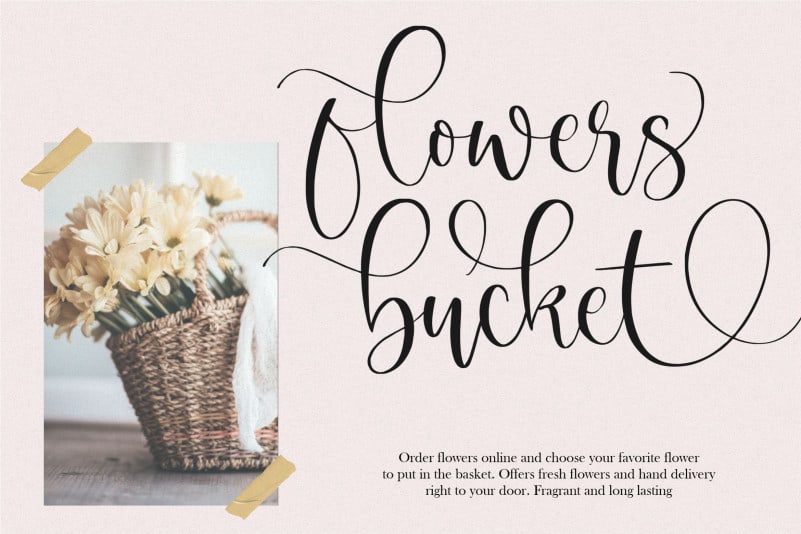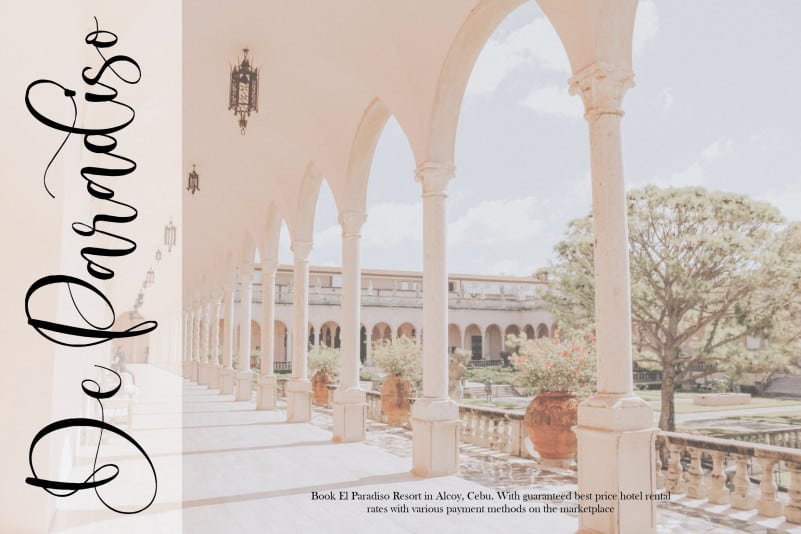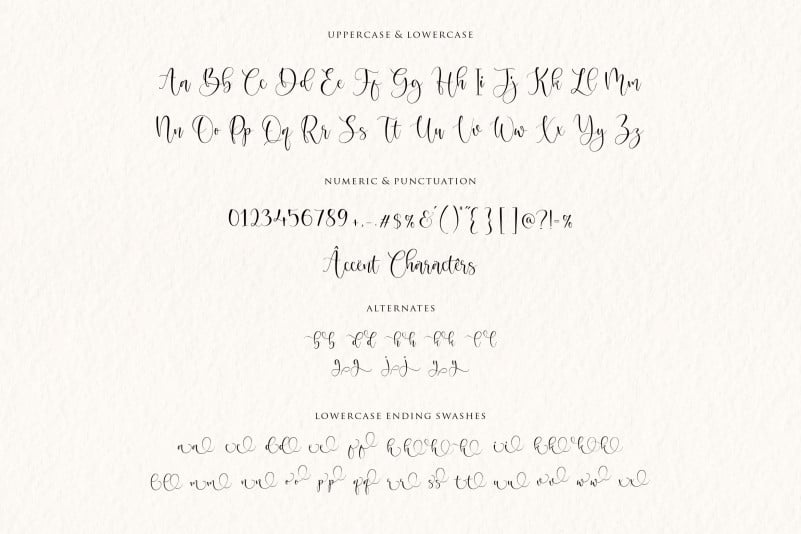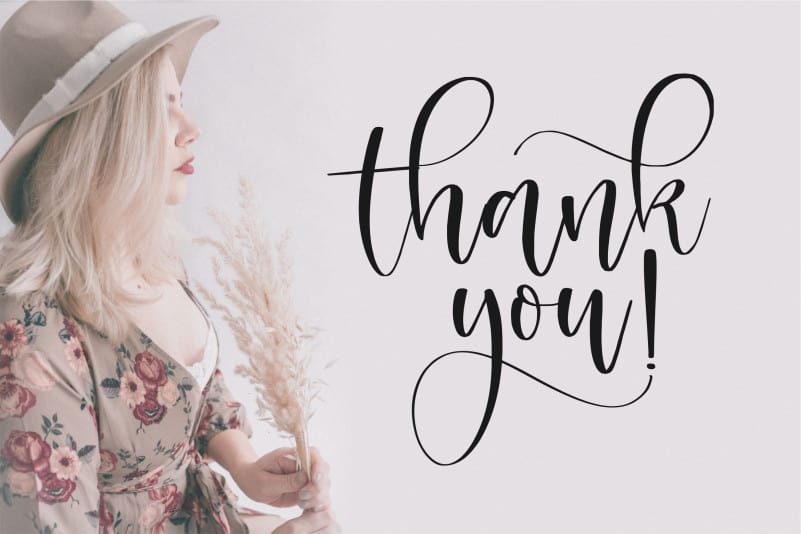
Magnolin Beautiful Calligraphy Font
Proudly Present, Magnolin Beautiful Calligraphy Font.
Magnolin is a Beautiful Calligraphy Font.
Magnolin is perfect for product packaging, branding project, megazine, social media, wedding, or just used to express words above the background.
Uppercase & Lowercase font Stylistic Alternates Ligatures Symbols & Punctuation OpenType Features.